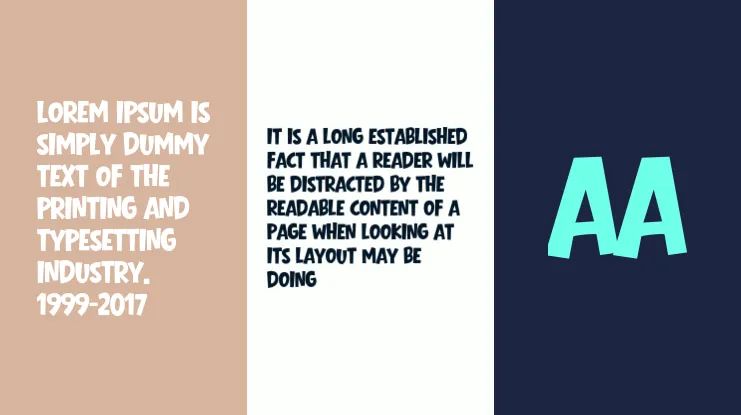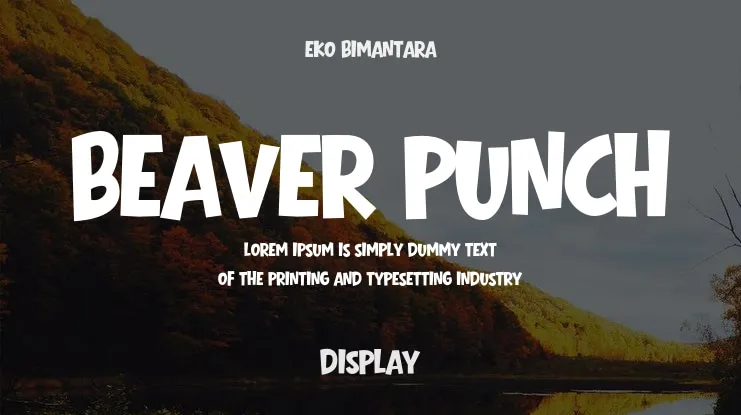
Beaver Punch Font is a bold and quirky typeface designed to grab attention with its playful and rugged style. The font carries a handcrafted feel, giving each letter a lively personality that makes text appear dynamic and full of character.
It is ideal for designs that aim to stand out with a fun yet strong visual appeal. This typeface works well for creative projects such as posters, branding, product packaging, and social media graphics.
The artistic details in Beaver Punch Font add a layer of depth and energy, making it more than just a standard display typeface. It reflects creativity and personality, giving designers a versatile tool for building exciting visual concepts that feel fresh and unique.
Its chunky lettering and distinctive shapes create a striking presence, making it perfect for bold titles and eye-catching headlines.
Beaver Punch Font Family
Category Handcrafted Display
Font Weight Heavy and Bold Letter forms
Character Coverage Uppercase, Lowercase, Numerals, Punctuation
Recommended Uses Brand Logos, Posters, Merchandise, Event Titles, Social Media Graphics
Design Features Playful Structure, Chunky Strokes, Handcrafted Feel
Distinctive Element Handmade Style with a Bold and Energetic Look
We offered this font to inspire designers who love experimenting with unconventional typography. Its distinctive style makes it suitable for modern design trends, playful campaigns, and projects that require a touch of originality. The font provides visual impact while maintaining clarity in its letter forms.